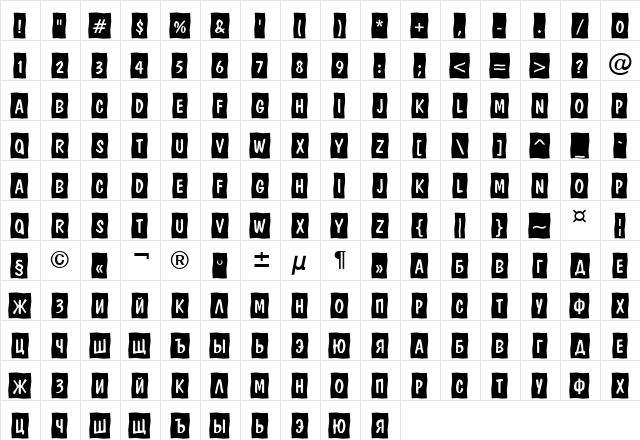
a_DomInoTtlCrmSht Regular
Design Context for a_DomInoTtlCrmSht Typeface
a_DomInoTtlCrmSht is a composed and adaptable typeface that performs quietly and consistently across a wide range of design contexts.